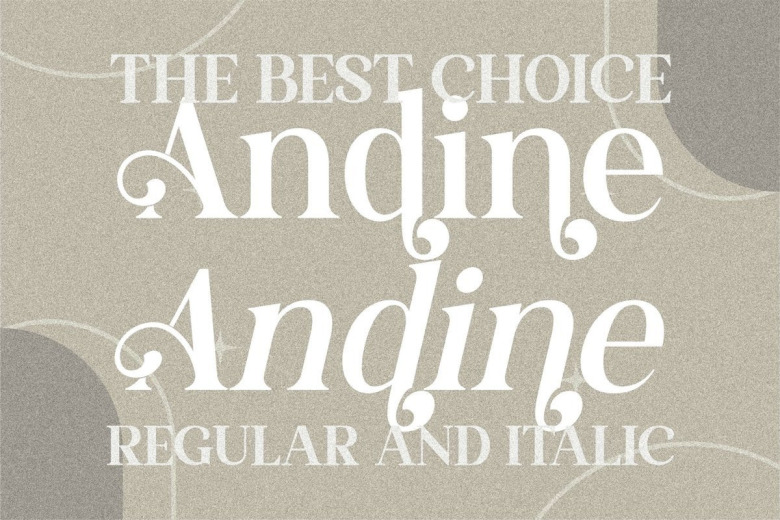
Andine Font
Andine Serif Font is a bold and modern serif with a swash and alternates to make your font loveable and delightful also suitable for any projects such as: logos, branding projects, homeware designs, product packaging, mugs, quotes, posters, shopping bags, t-shirts, book covers, name card, invitation cards, greeting cards, label, photography, watermark, special events, and all your other luxury and beautiful projects that need a Beautiful serif taste.